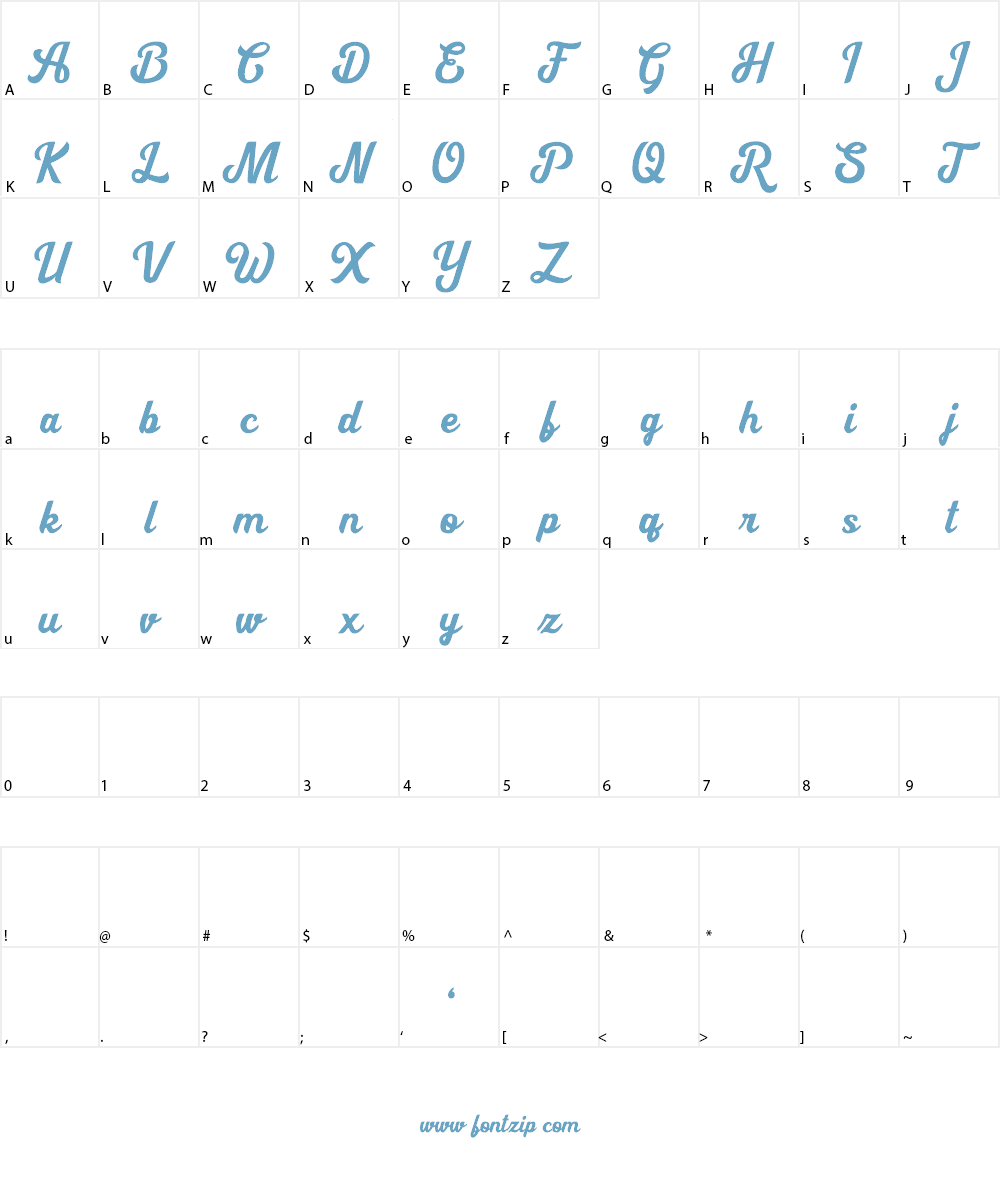
Cipthayasa is an elegant calligraphy script. It can be used for logos, headers, t-shirts, quotes, and every other design which needs a striking, yet friendly typeface.